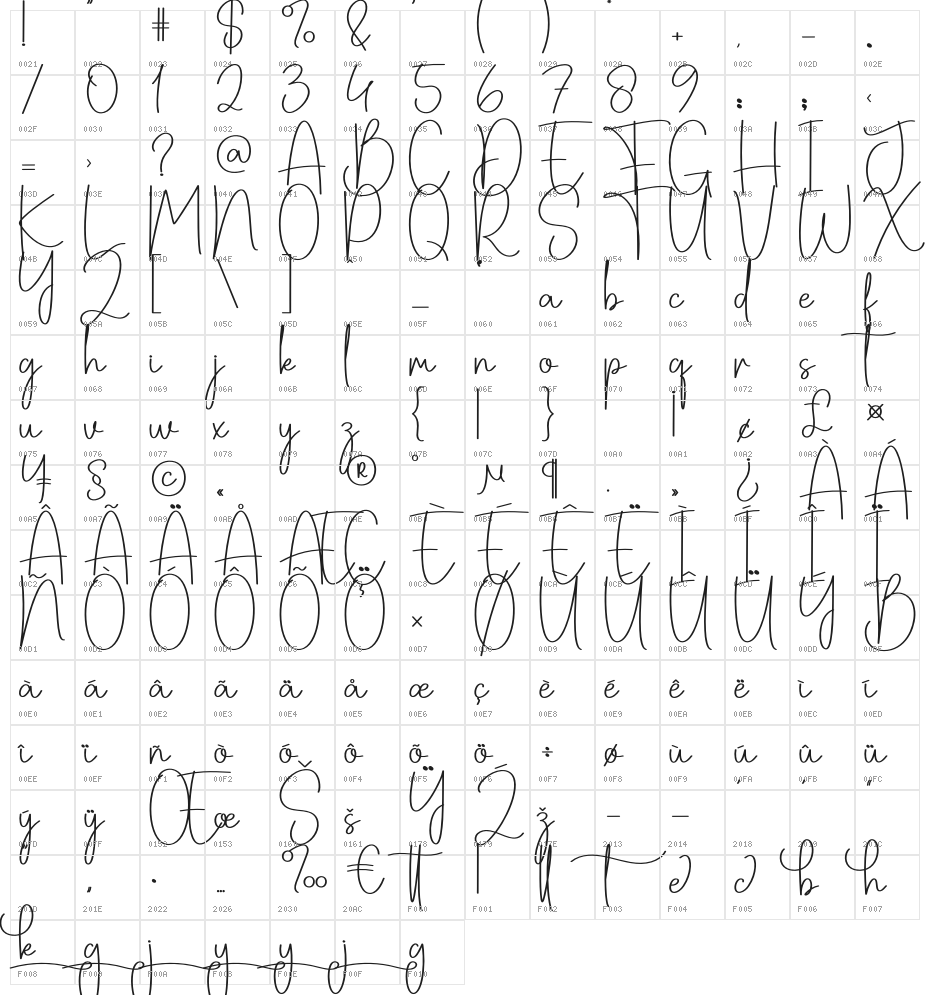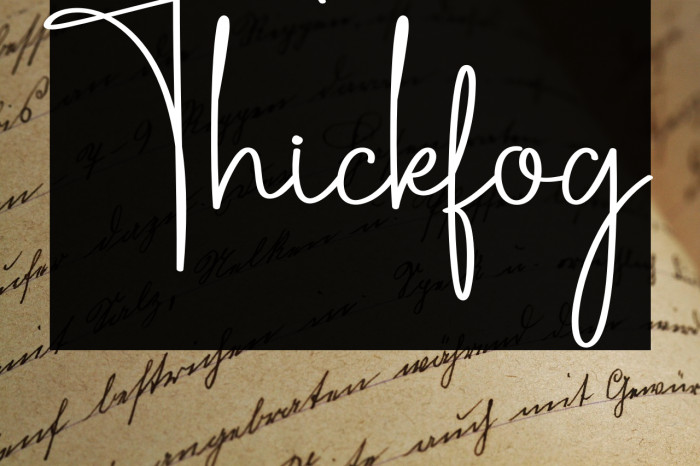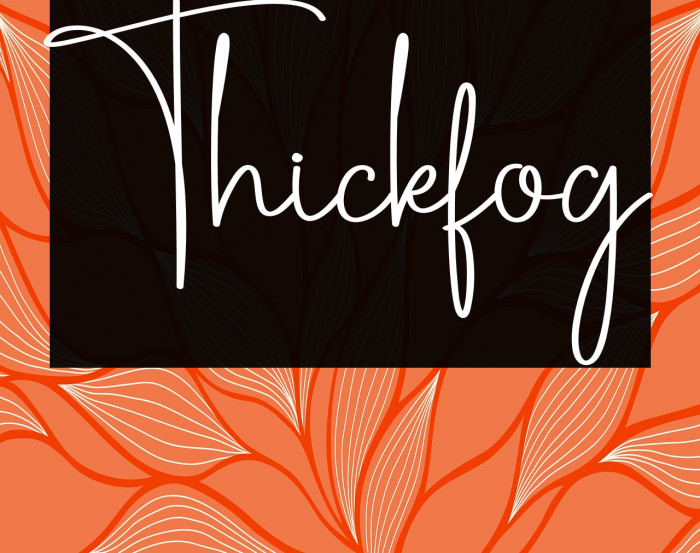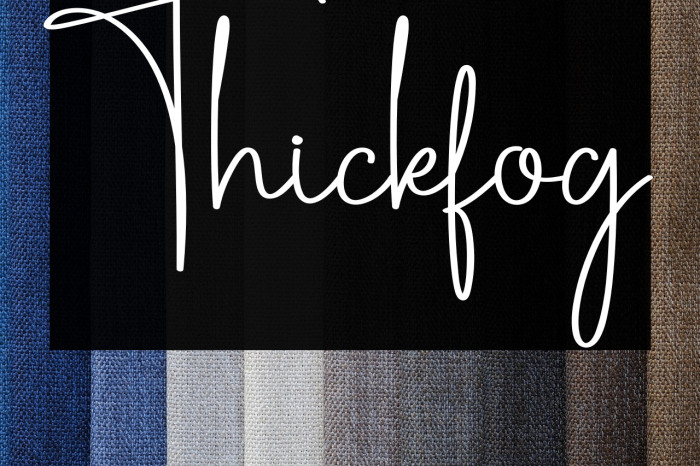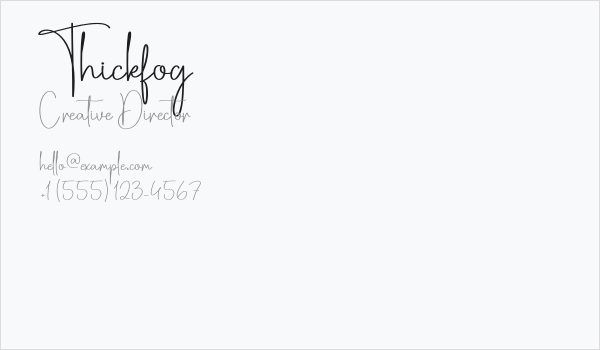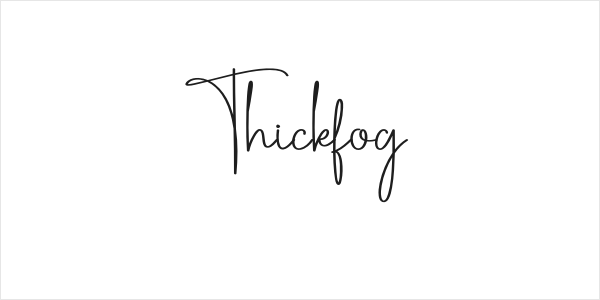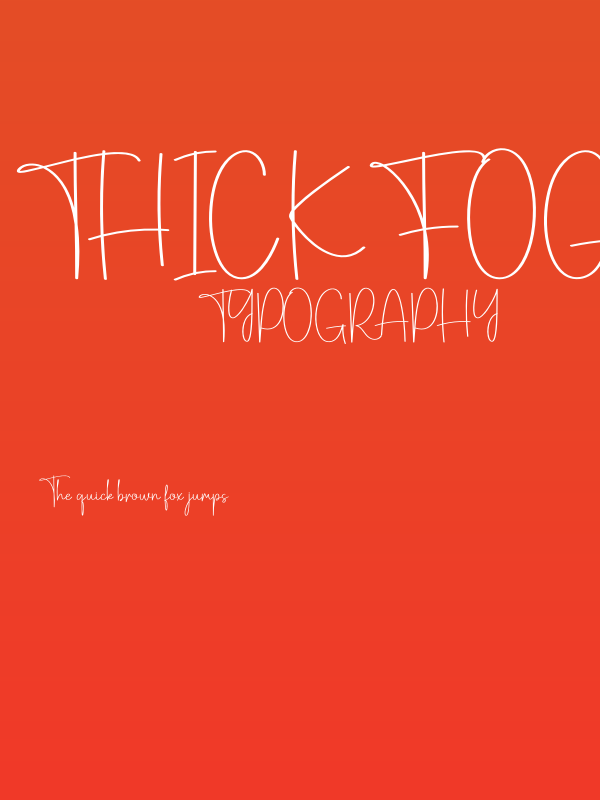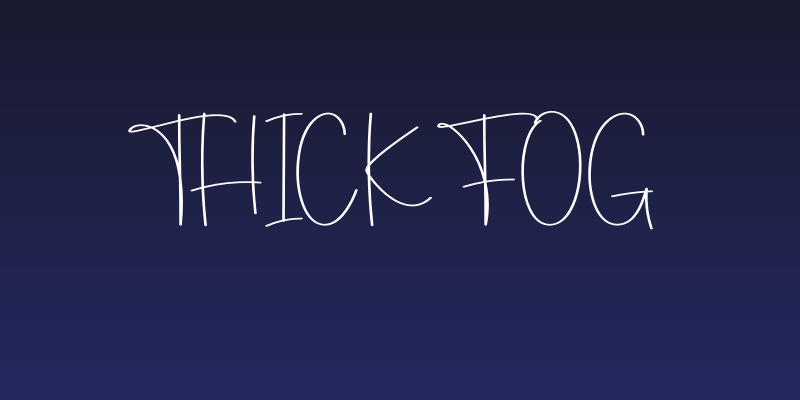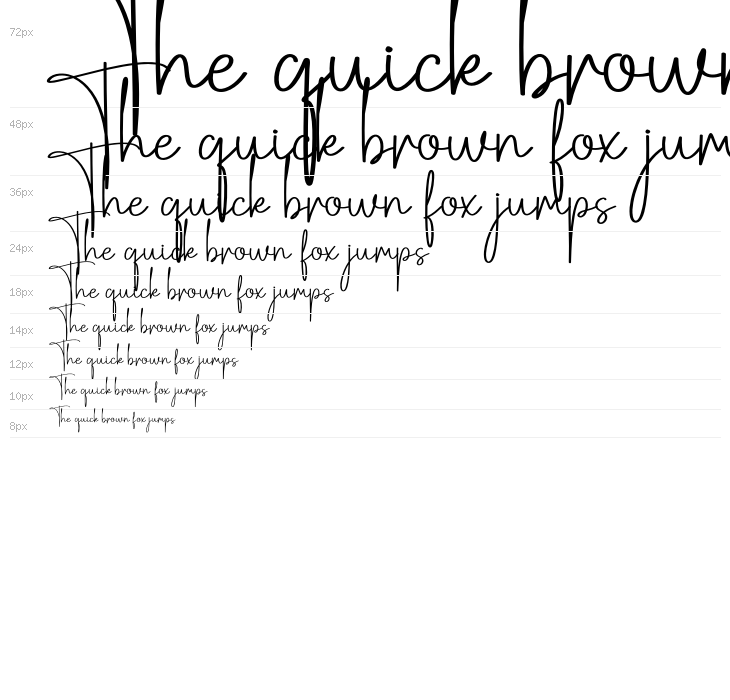
Thickfog Font
Thickfog Description
This font exudes a playful and casual handwritten style, characterized by its flowing and interconnected letterforms. The uppercase letters maintain a consistent height, while the lowercase letters exhibit a natural, cursive flow. The numerals are clear and maintain the same whimsical style, making them easily legible. Special characters are creatively integrated, maintaining the overall aesthetic. The strokes are consistent in thickness, providing a harmonious and balanced appearance. This font is ideal for projects that require a personal touch, such as invitations, greeting cards, or informal branding.
| Overall Style | Casual, Playful |
| Use Case | Headlines, Informal text, Personal projects |
| Proposed Projects | Ideal for invitations, greeting cards, personal branding, and informal communications. |